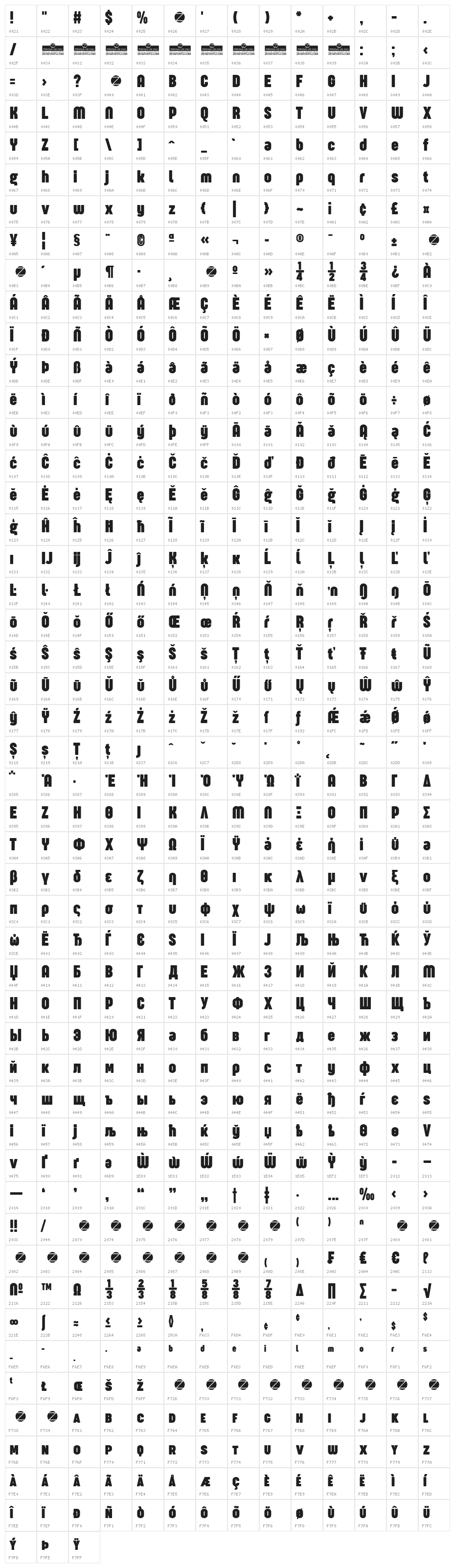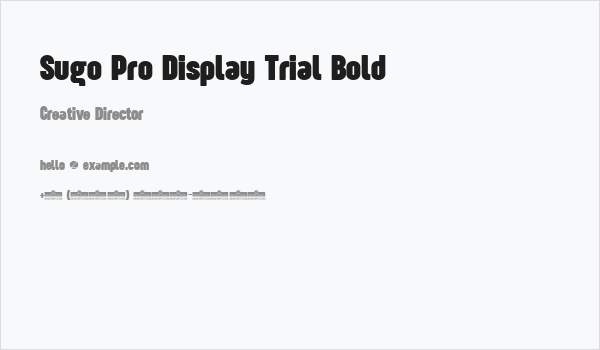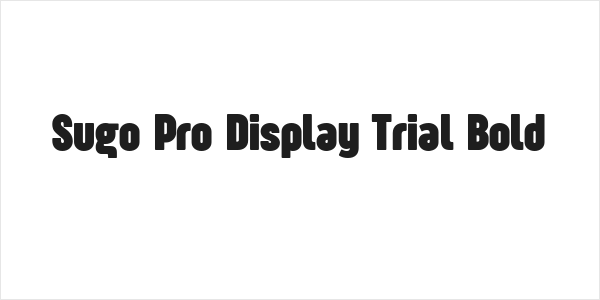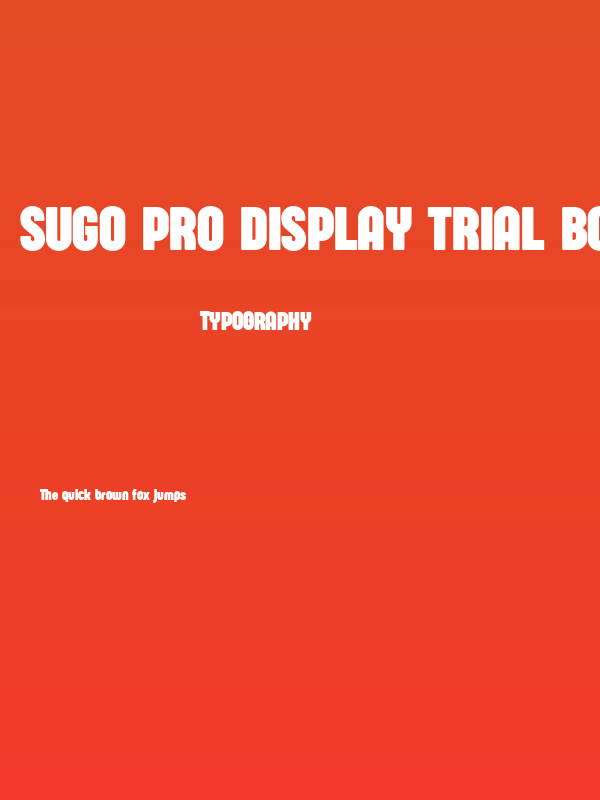
Sugo Pro Display Trial Bold Font
Sugo Pro Display Trial Bold Description
This font is a bold and striking display typeface characterized by its thick, heavy strokes and rounded edges. The uppercase and lowercase letters are designed with a uniform weight, creating a strong visual impact. The characters are wide and have a slightly condensed appearance, which adds to their boldness. The font's design is modern and geometric, with a playful yet assertive style. It includes a full set of uppercase and lowercase letters, numbers, and a variety of special characters, making it versatile for various design needs.
| Proposed Projects | Ideal for branding, poster design, headlines, and any project requiring a strong visual presence. |